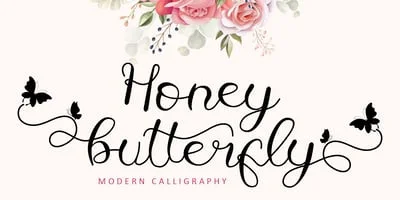
Butterfly Font
Butterfly Font is perfect for spring wedding invitations, botanical garden signage, nature-themed children's books, beauty salon branding, floral shop marketing, butterfly conservatory materials, feminine fashion brands, organic cosmetics packaging, garden center promotions, nature photography portfolios, wellness retreat communications, and delicate artistic projects.
This font is exciting because it captures the graceful, ethereal beauty of butterfly wings in flight, featuring delicate letterforms that seem to flutter and dance across the page with the same gentle elegance that makes butterflies nature's most enchanting creatures. The flowing curves and organic shapes mirror the natural symmetry and vibrant patterns found on butterfly wings, creating typography that feels alive with natural movement and transformative beauty. Each character embodies the lightness and freedom of these magnificent insects, bringing a sense of metamorphosis and renewal to every design project.
The Butterfly Font family includes regular weight with complete uppercase and lowercase alphabets, elegant numerals, delicate punctuation marks, and decorative butterfly-inspired ornaments. Advanced versions may feature additional stylistic variants with enhanced wing-like flourishes, alternate characters that create flowing connections, and seasonal decorative elements that celebrate nature's beauty.
Whether you're designing romantic wedding materials, creating nature-focused branding, or developing feminine lifestyle content, Butterfly Font delivers the delicate charm and natural elegance your project needs to capture hearts and inspire transformation. This typeface transforms ordinary text into graceful expressions that celebrate the beauty of nature and the magic of change. The font's organic aesthetic makes it ideal for brands and projects that embrace natural beauty and gentle sophistication. Nature lovers and feminine design enthusiasts will adore how this font brings authentic butterfly grace to their work with its genuinely delicate and transformative character.